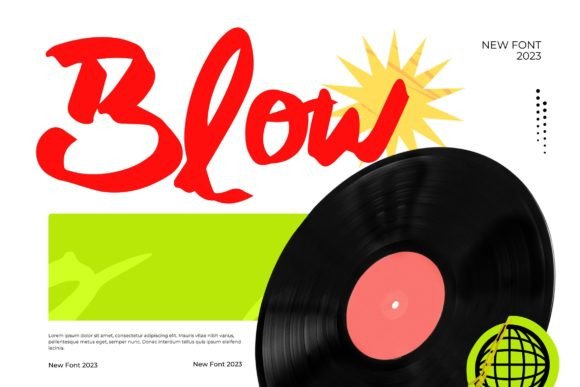
Behold, Blow Font – The Unforgettable Display Champion for Your Digital Masterpieces!
In a world clamoring for attention, it's the standout few that truly capture hearts and minds. Introducing Blow Font, the display font that refuses to blend in, demanding attention with its bold, impactful strokes and striking letterforms. A creation of Maghrib, this font is a symphony of strength, confidence, and modernity, ready to elevate your designs to dizzying heights.
With Blow Font, ordinary text transforms into visual spectacles, captivating your audience from the very first glance. Its thick, powerful strokes exude an aura of authority and determination, while its unique letterforms dance with a rhythm all their own. Whether you're crafting headlines that command attention, designing posters that leave a lasting impression, or building brands that exude confidence, Blow Font is your ultimate ally.
Immerse yourself in the world of Blow Font and discover a font family that's as diverse as it is captivating. From playful and energetic to sleek and sophisticated, Blow Font effortlessly adapts to your creative vision, adding an unforgettable touch to every project. Its versatility knows no bounds, making it the perfect choice for a myriad of applications:
- Ignite your headlines with fiery intensity, ensuring they leap off the page and sear themselves into the minds of your readers.
- Craft posters that demand attention, transforming ordinary announcements into vibrant works of art that draw crowds and spark conversations.
- Build brands that radiate confidence and authority, leaving an indelible mark on the minds of your customers.
The possibilities are endless with Blow Font, a font that empowers you to make a statement, leave a lasting impression, and create designs that truly resonate with your audience.
But Blow Font is more than just a collection of pixels on a screen; it's an experience, a journey into the realm of limitless creativity. It's the font that ignites passions, fuels imaginations, and transforms ordinary designs into extraordinary masterpieces.
So, embrace the power of Blow Font today, and let your creativity soar to new heights. Unleash the untapped potential of your designs and leave the world in awe of your brilliance. After all, in a world of conformity, it's the bold and daring who truly shine.